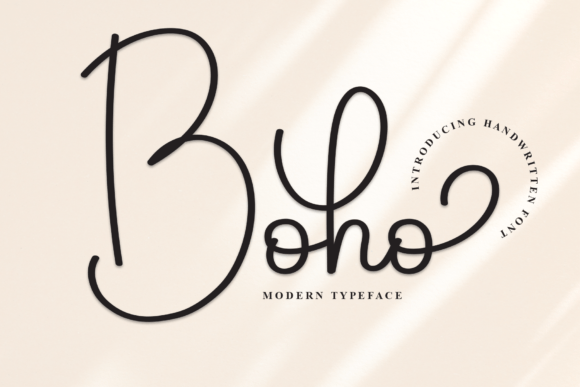
The Boho Font: A Charming and Elegant Choice for Designers
I’ll never forget the design project that led me to discover the Boho font. I was working on a wedding invitation suite for a client who wanted something that felt both whimsical and sophisticated. As I scrolled through font after font, nothing seemed quite right – until I stumbled upon Boho. Its unique blend of elegance and playfulness instantly captured the essence of the couple’s special day. If you’re like me and constantly on the lookout for that perfect handwritten touch, you’ll love exploring the Boho font.
An Honest Review of Boho Font
What I Love About Boho Font ✨
- ✨ Unique, elegant handwritten style that’s perfect for special occasions
- ✅ Highly versatile and adaptable for various design projects
- ✅ Supports OpenType features for advanced typography
- ✅ Stunning on wedding invitations, thank you cards, quotes, greeting cards, logos, and business cards
- ⚠️ Some users may find the font a bit too ornate for very casual or minimalist designs
- ⚠️ Limited availability of stylistic alternates, which may limit creative experimentation
The Backstory of Boho Font
Boho font was designed with the intention of capturing the essence of bohemian elegance. Its creator aimed to craft a font that felt both free-spirited and refined, perfect for designers looking to add a touch of whimsy to their work. While the designer’s story is shrouded in mystery, the font’s charm and character speak for themselves.
Q: What type of designs is Boho font best suited for?
Boho font is ideal for designs that require a handwritten touch, such as wedding invitations, thank you cards, quotes, greeting cards, logos, and business cards.